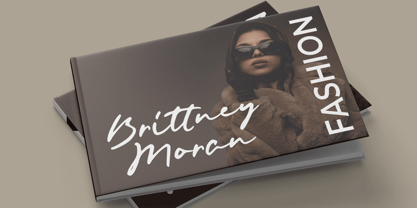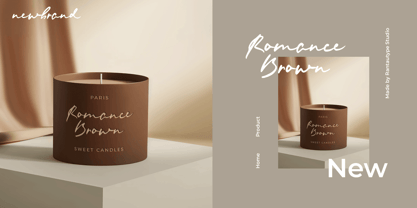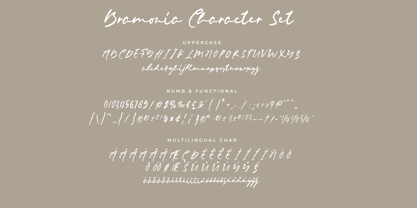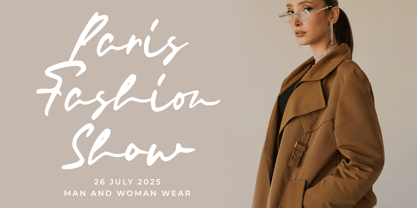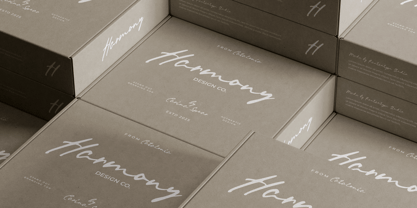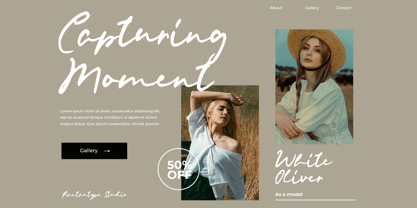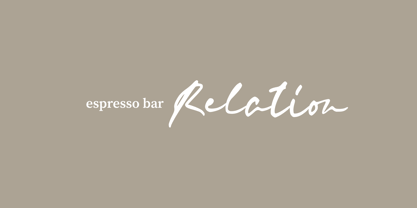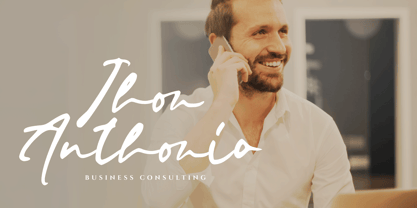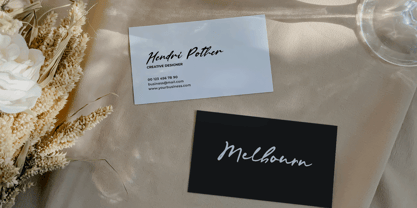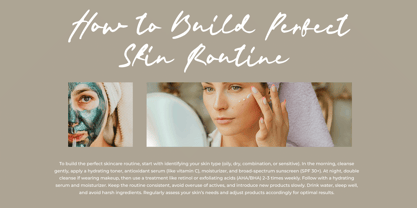
Bramonia
by RantauType
The Bramonia Font Family was designed by Yudi Pratama Chandra and published by RantauType. Bramonia contains 1 styles. More about this family
Bramonia is natural signature font combines the elegance of handwritten script with the refinement needed for business or branding purposes. Bramonia come with smooth, flowing strokes that mimic authentic handwriting, while maintaining clarity and balance for readability.
Bramonia is a perfectly choice for any creative endeavor, creating, modern, lifestyle design such as logotype, title, cover, branding, invitations, wedding designs, display and magazine, social media posts, advertisements, printed quotes, product packaging, corporate brand, product designs, labels, photography, watermarks, special events and any other project with handwritten feel.
• Standart Glyphs
• Numberial and Functional
• Ligature and alternate